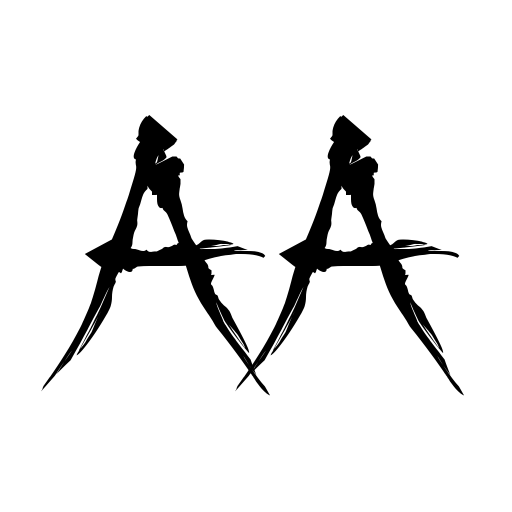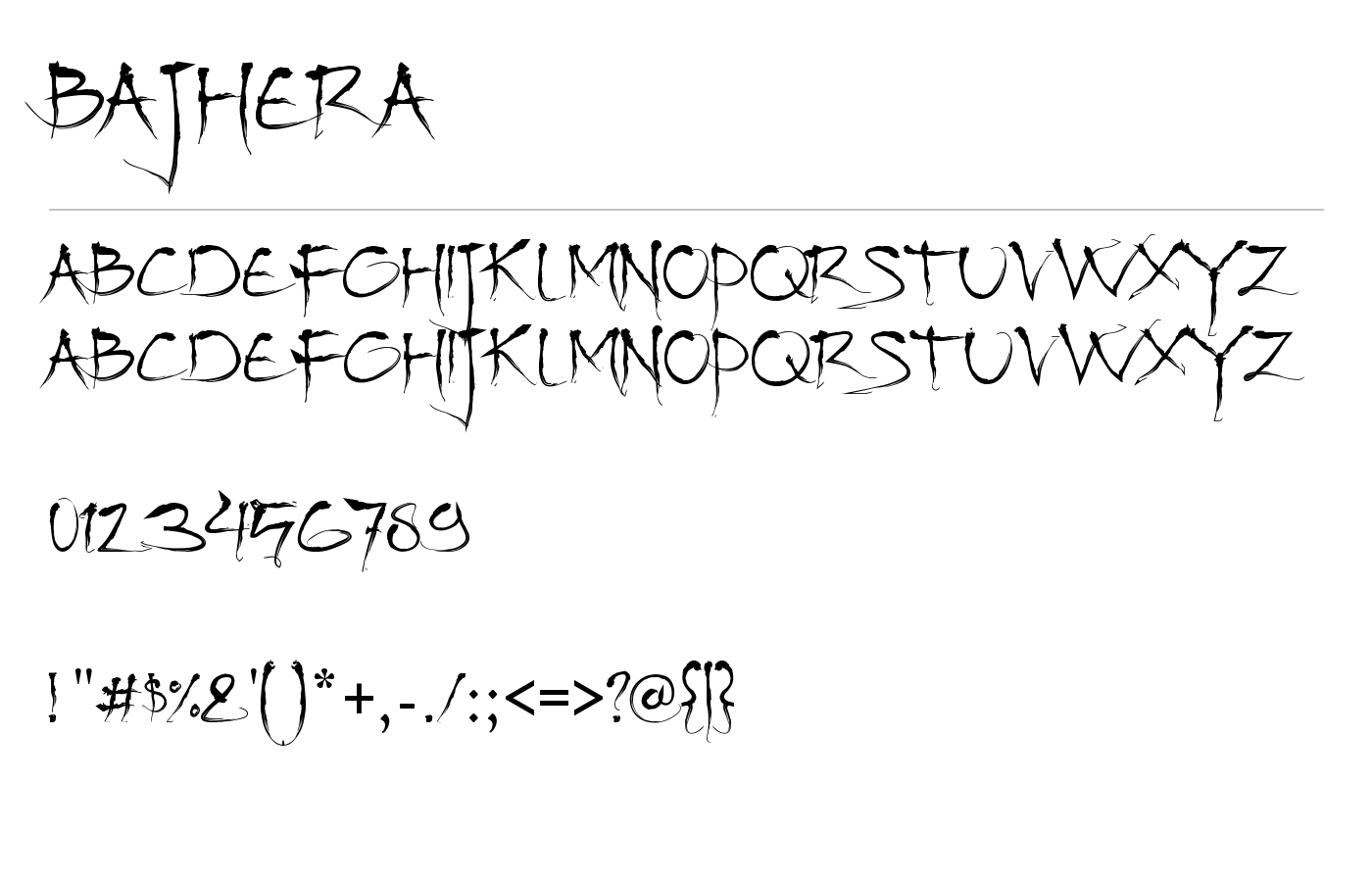
Bajhera is a distinctive, hand-drawn display font with a sharp, jagged style that blends a haunting, edgy feel with artistic flair. Its tall, narrow letterforms and irregular strokes create a dramatic, gothic impression, perfect for bold headlines, posters, or creative branding that seeks a mysterious or rebellious vibe. This font works best when used to grab attention and add a striking, unconventional character to designs.
Bajhera Font